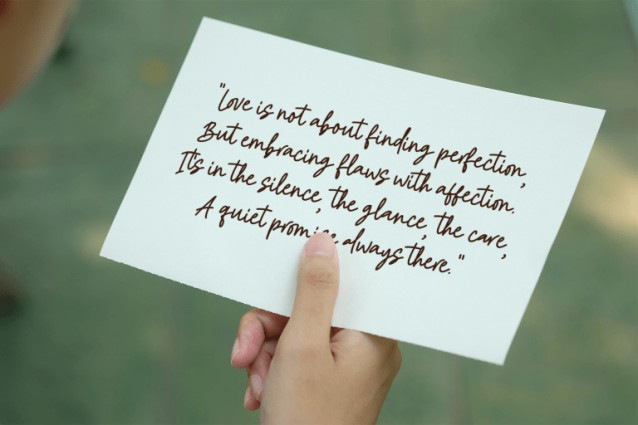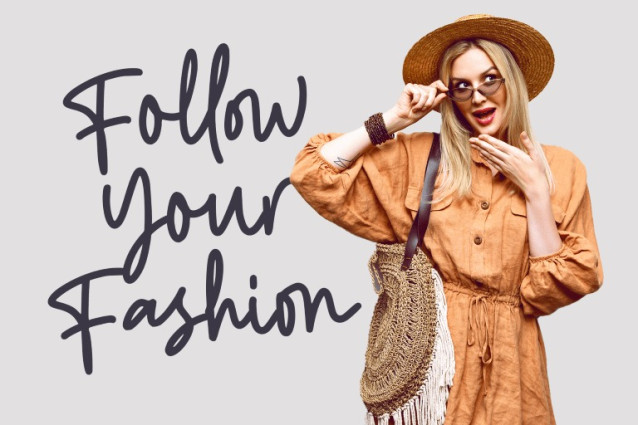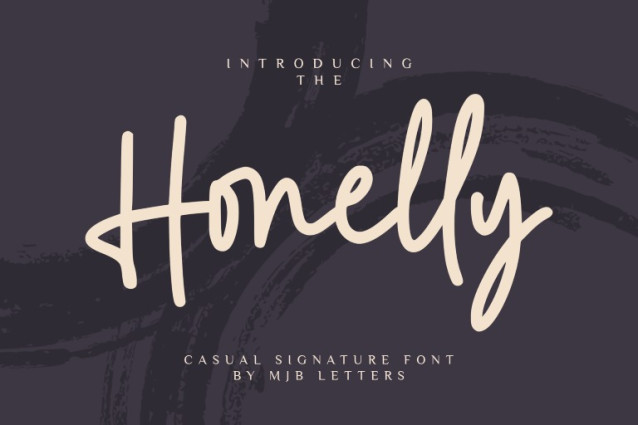
Honelly Handwriting Font
Honelly Handwriting Font a casual yet confident signature font that blends natural flow with bold strokes. Designed to mimic the effortless charm of authentic handwriting, Honelly brings a fresh and personal touch to your creative projects.
With its bold yet smooth appearance, this font is ideal for branding, logos, packaging, wedding invitations, photography signatures, quotes, and modern editorial layouts. Each letter is crafted to stand out while remaining harmonious in composition — striking a perfect balance between casual elegance and expressive confidence.
Honelly also features a complete set of uppercase and lowercase letters, numerals, punctuation, ligatures, and multilingual support, making it not only visually appealing but also highly functional.
Whether you’re designing for a bold personal brand or looking to add a stylish, handwritten vibe to your visual content, Honelly is the go-to font to make your message naturally unforgettable.